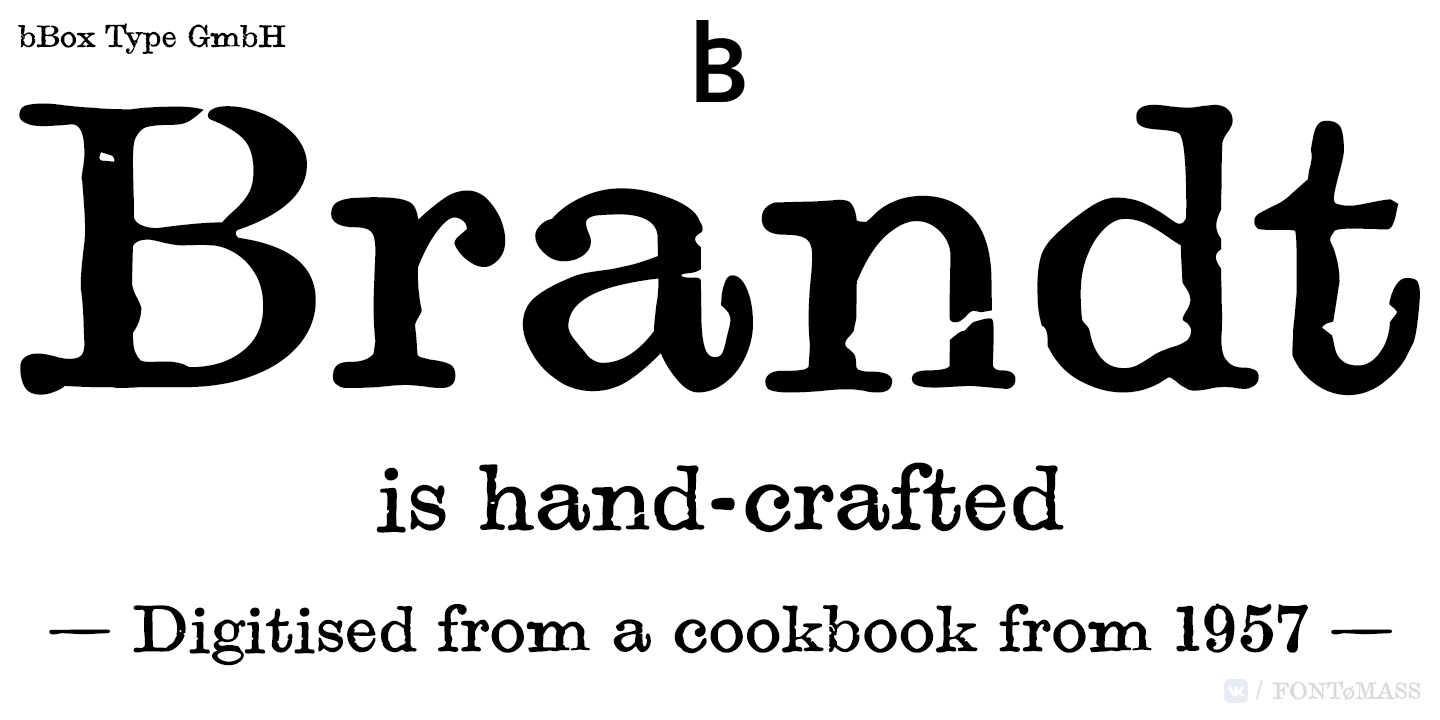
Brandt Font
Brandt Font is perfect for German heritage branding, traditional craft brewing signage, authentic European restaurant marketing, heritage manufacturing logos, traditional craftsmanship advertising, cultural institution communications, precision engineering presentations, and established family business identity.
What makes Brandt Font exciting is its Germanic precision that embodies the methodical excellence and traditional craftsmanship of German engineering culture with heritage reliability and artisan quality. The font features structured letterforms with engineering proportions and craftsman character that evoke beer gardens, precision machinery, and the enduring tradition of German manufacturing excellence and artisan craftsmanship. Its distinctive Germanic styling and traditional appeal communicate quality, reliability, and engineering excellence, making every message feel built to last and touched by the meticulous precision of German tradition and craftsman heritage.
The Brandt Font family includes regular weight with uppercase and lowercase letters, numerals, punctuation marks, and special characters. Premium versions often feature traditional alternates and Germanic elements that enhance the heritage, craftsmanship aesthetic perfect for manufacturing and cultural applications.
The precision character of Brandt Font makes it particularly valuable for craft breweries, precision manufacturers, and German cultural institutions. Its excellent readability ensures technical specifications and heritage messaging remain clear while maintaining the distinctive Germanic aesthetic that appeals to customers seeking authentic German quality and traditional craftsmanship.
Heritage manufacturing marketers appreciate how Brandt Font effortlessly conveys Germanic authenticity and engineering precision. The font's structured proportions and craftsman details create trustworthy brand materials that establish connections with audiences who value German engineering, traditional quality, and the methodical excellence of Germanic craftsmanship and heritage manufacturing.
The versatile precision of this typeface extends to technical education, quality certification, and heritage preservation where Germanic authenticity enhances engineering credibility and traditional appeal. Brandt Font Free Download provides creative professionals with an essential tool for developing memorable, quality-driven designs that resonate with audiences who embrace German heritage, engineering precision, and the reliable excellence of Germanic craftsmanship in their manufacturing and heritage experiences.